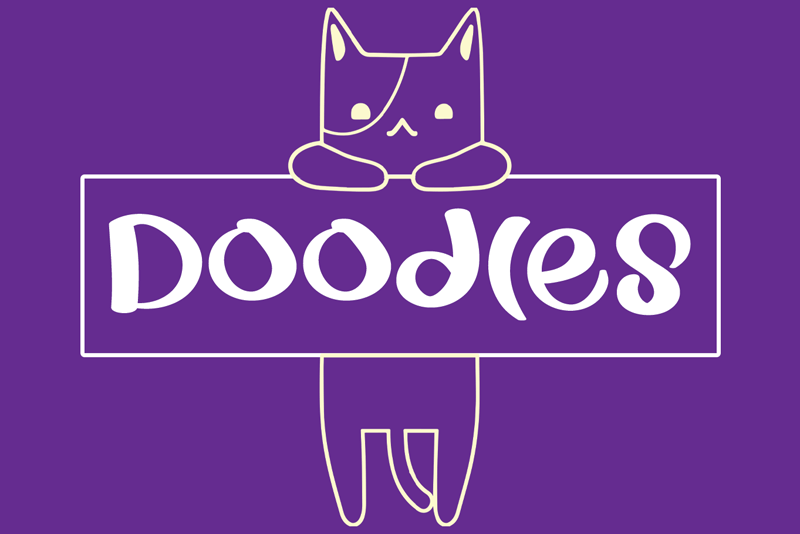
Font name: | Doodles |
Author: | Luluk Surotul |
Doodles is a cool and cute-looking display font. Add it to each of your party invitations, apparel, or pretty much any design that requires a touch of youth and joy. Attention : Doodles handwriting Font is prohibited to use this font for commercial purposes or for profit without the permission of the author/admin, without being known to use this font without permission, will be subject to sanctions 5x the specified price. This font is used only for demos (Demo license) If you want to use this font for commercial use please contact email: elllulukstudio123@gmail.com or click the link below: https://www.creativefabrica.com/product/doodles/ref/761303/ If you want to see more other fonts, please click: https://www.creativefabrica.com/designer/el_hotcig Any donations are very appreciated. Paypal account for donation: https://www.paypal.com/paypalme/luluk783 thanks. |